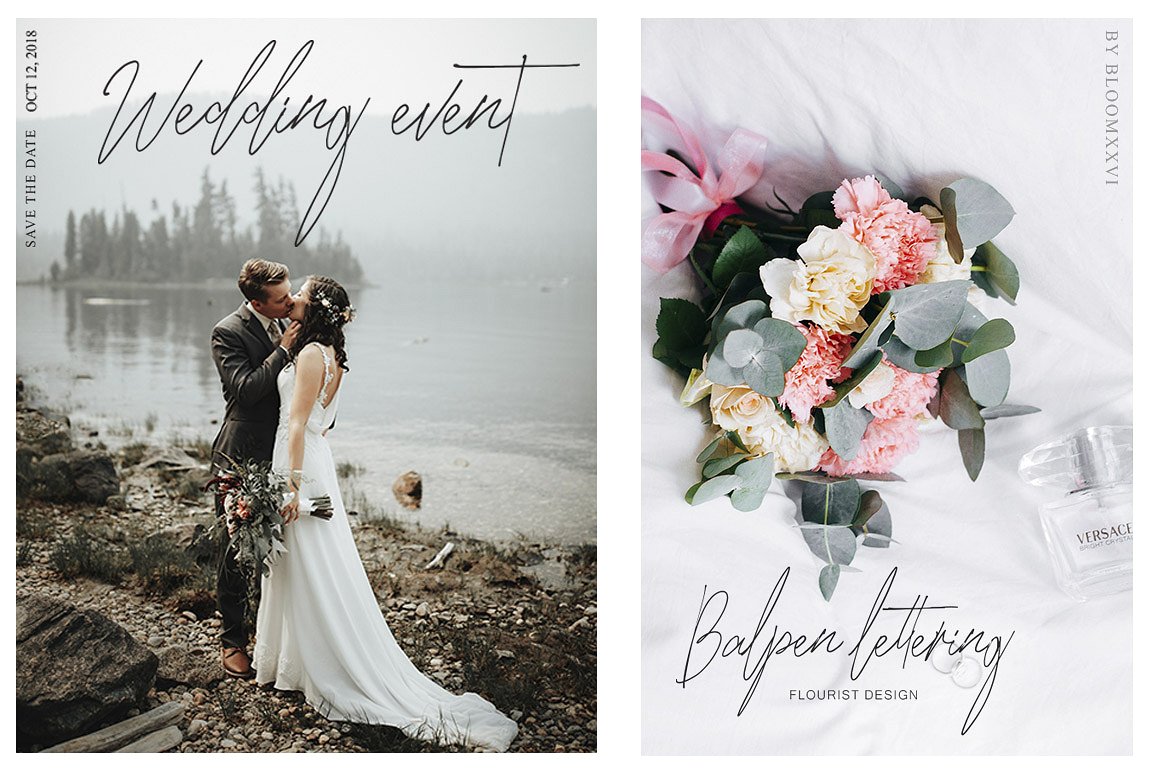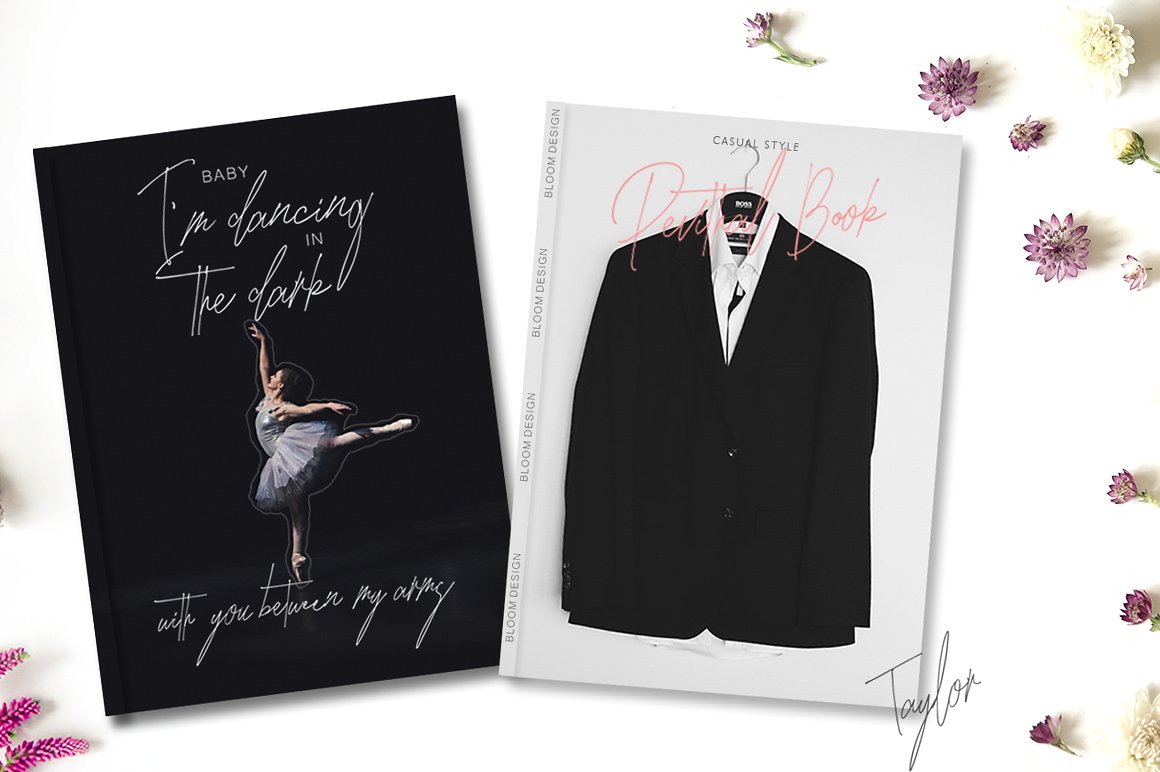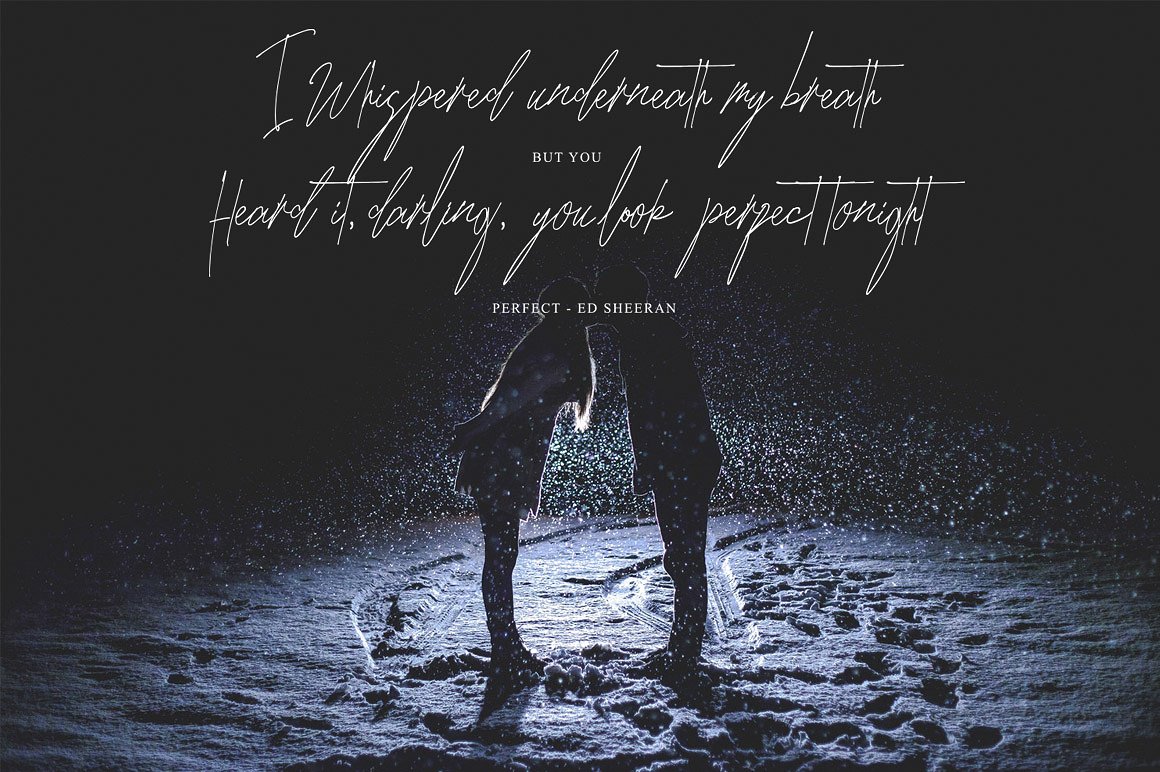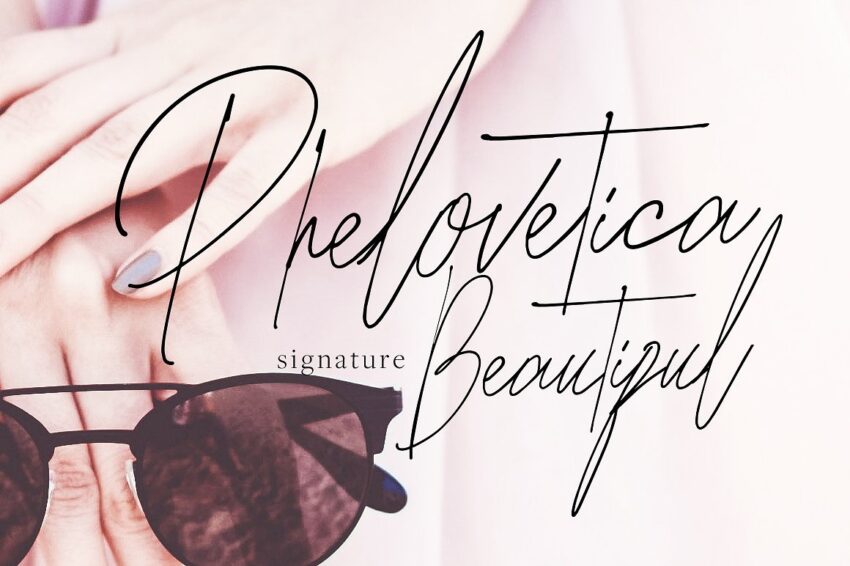
Introduction to Phelovetica Font
Phelovetica, a modern, feminine script.
This handcrafted type is elegant and features fine, thin letters Special attention has been paid to carefully kern all the letter pairs, resulting in a natural flow.
Phelovetica Font offers exceptional quality and versatility, making it a valuable addition to your design toolkit. Whether you’re creating for personal projects or commercial use, Phelovetica Font delivers professional results.